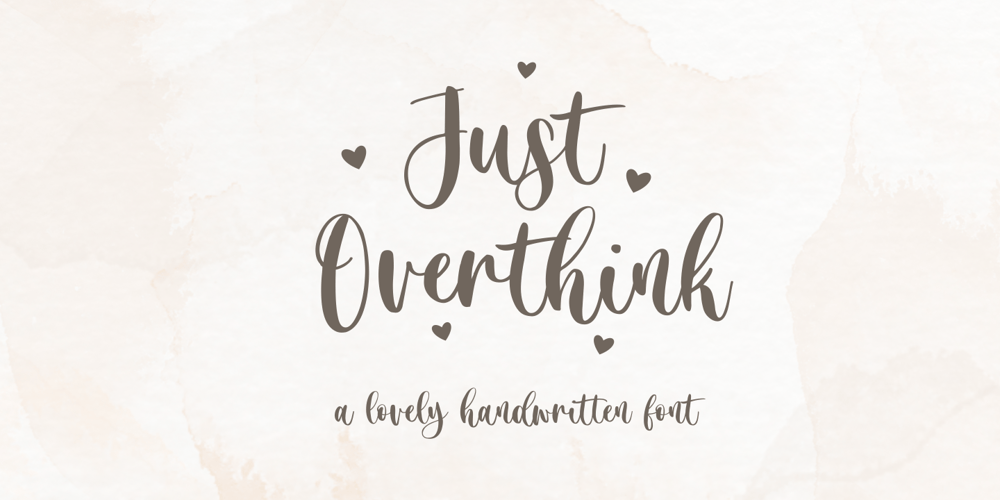
Just Overthink
Just Overthink font
Just Overthink Font Family was designed by Muhamad Yusron Billah and published by Sronstudio. Just Overthink contains 1 styles and family package options. Just Overthink – Lovely Font – This font perfect for branding, invitation, stationery, wedding designs, social media posts, advertisements, product packaging, product designs, label, photography, watermark, special events, and more.Features: Uppercase and lowercase letters Multilingual, numerals, and punctuation Follow Instagram: @sronstudioThank You!